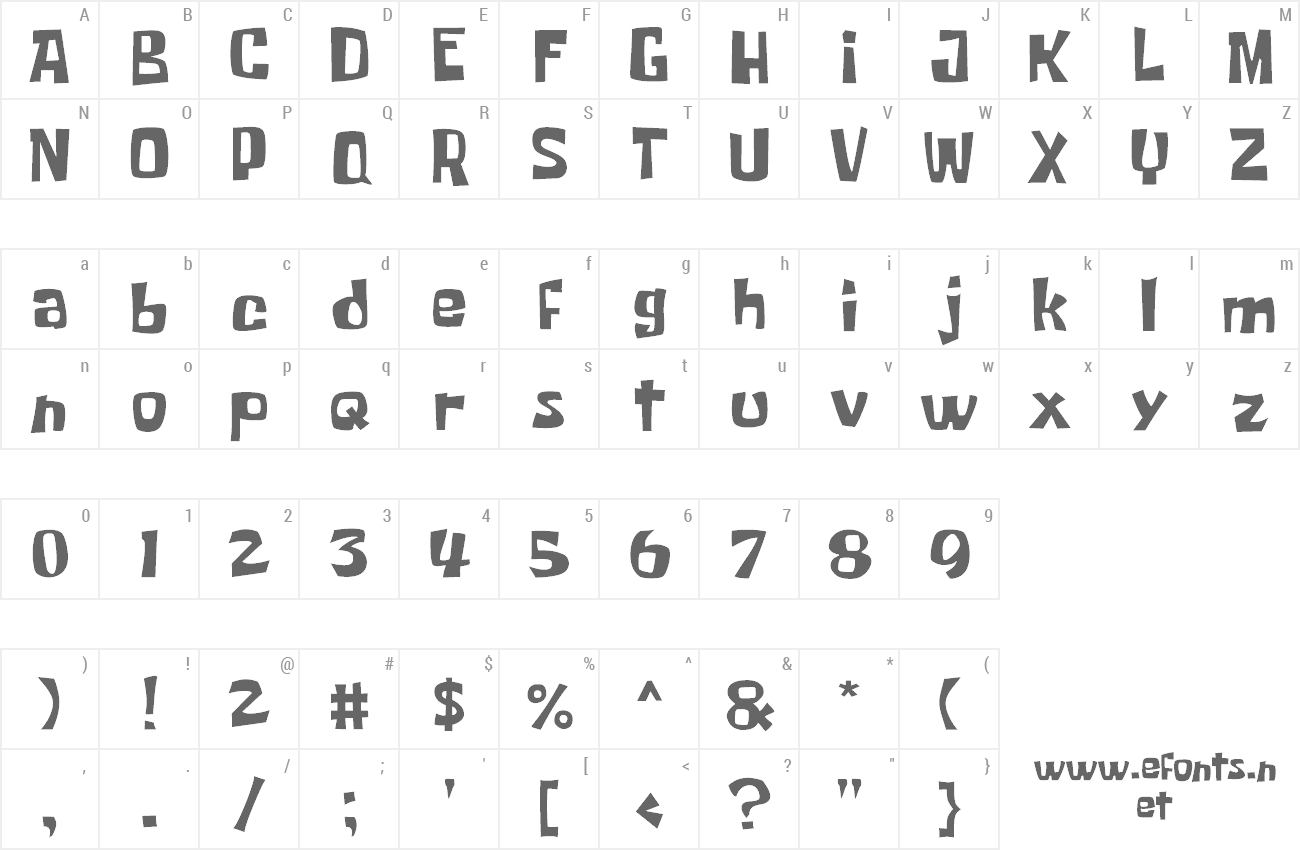
Converted direct from letters embedded in the old Spongebob movie website, this is the most accurate recreation of the Spongebob font you'll ever find. (Some additional punctuation has been borrowed from other sources.) I don't recommend using this for commercial purposes. |